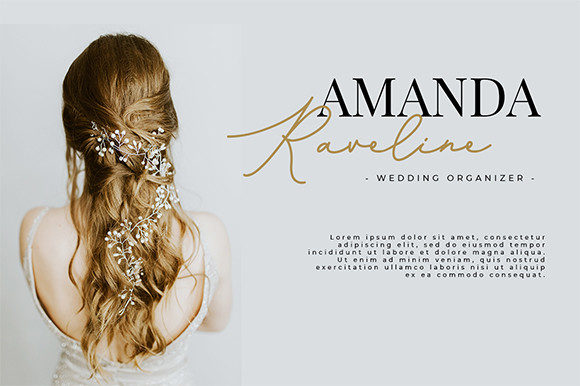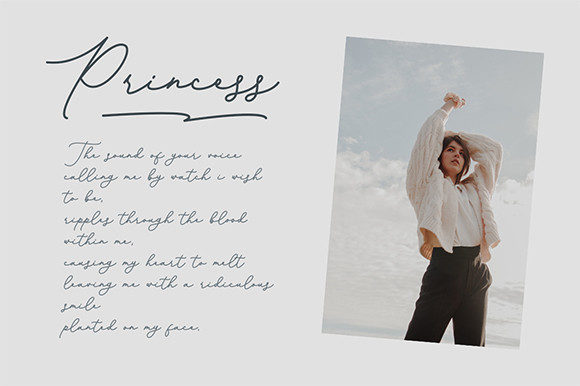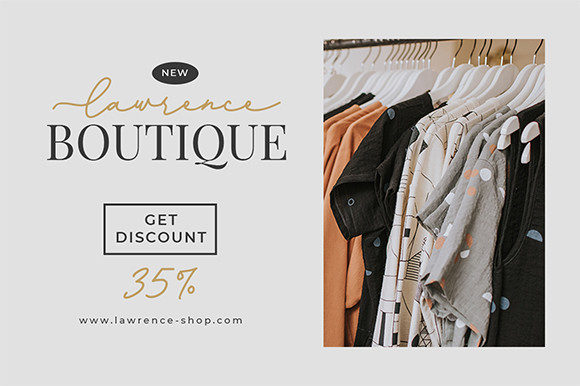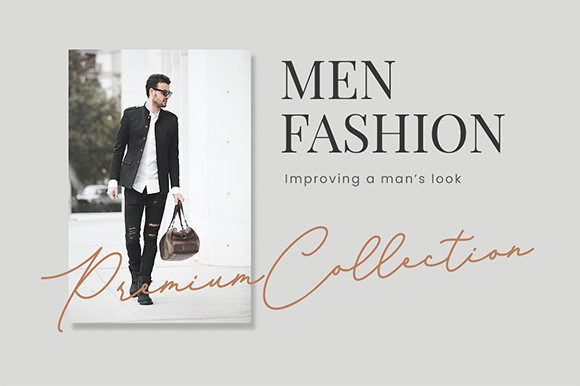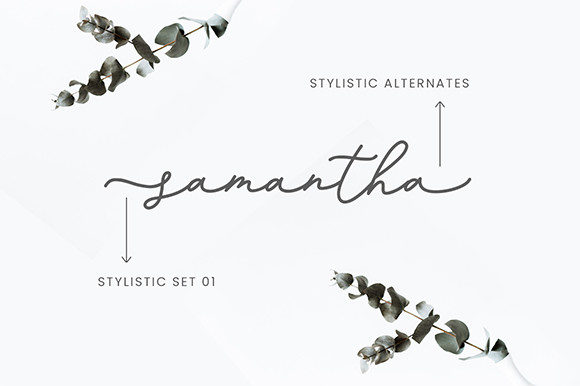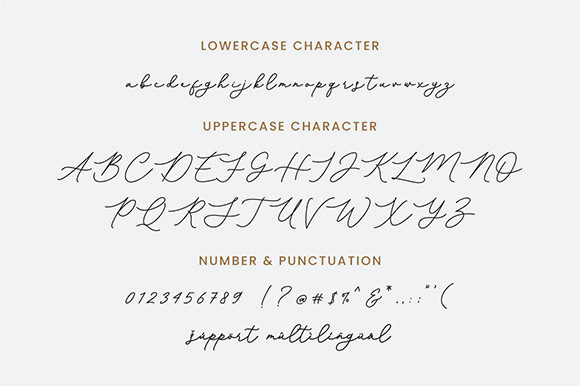
Introduction to Bianca Clarinda Font
Bianca Clarinda is a delicate, refined script font that emanates sophistication and elegance.
Its stylish alternates and ligatures make this font the perfect match for any project Bianca Clarinda is PUA encoded which means you can access all glyphs and swashes with ease.
Key Features of Bianca Clarinda Font